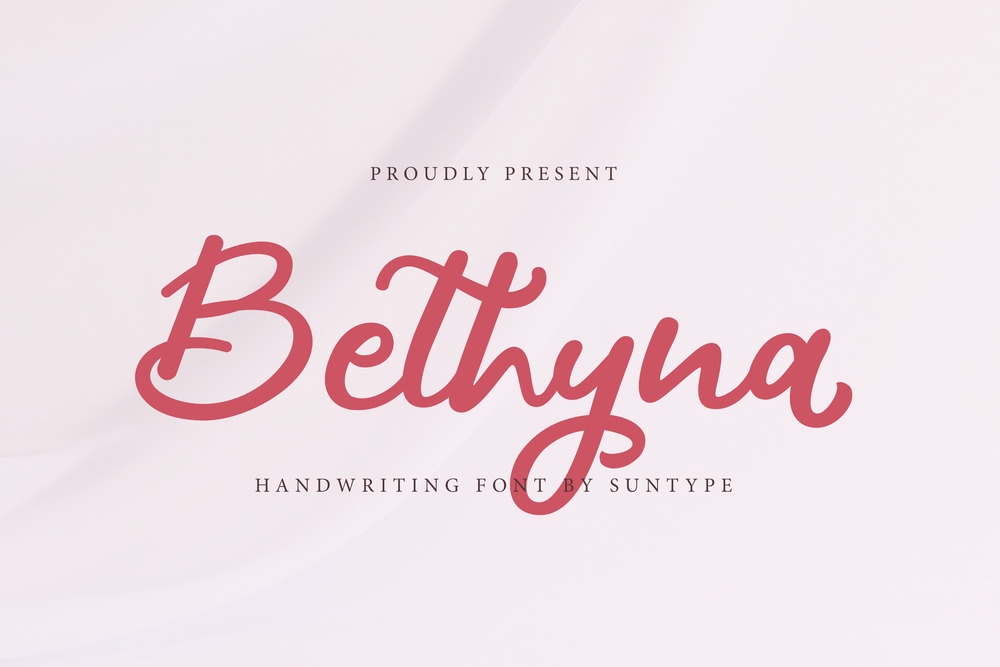
Bethyna | Script Font
Bethyna It’s a joyful and charming script font. It is defined by smooth curves and is perfect for fashion branding or editorial designs. Add it confidently to your projects, and you will love the results. Thanks for checking out my shop, and feel free to get in touch! suntype07@gmail.com